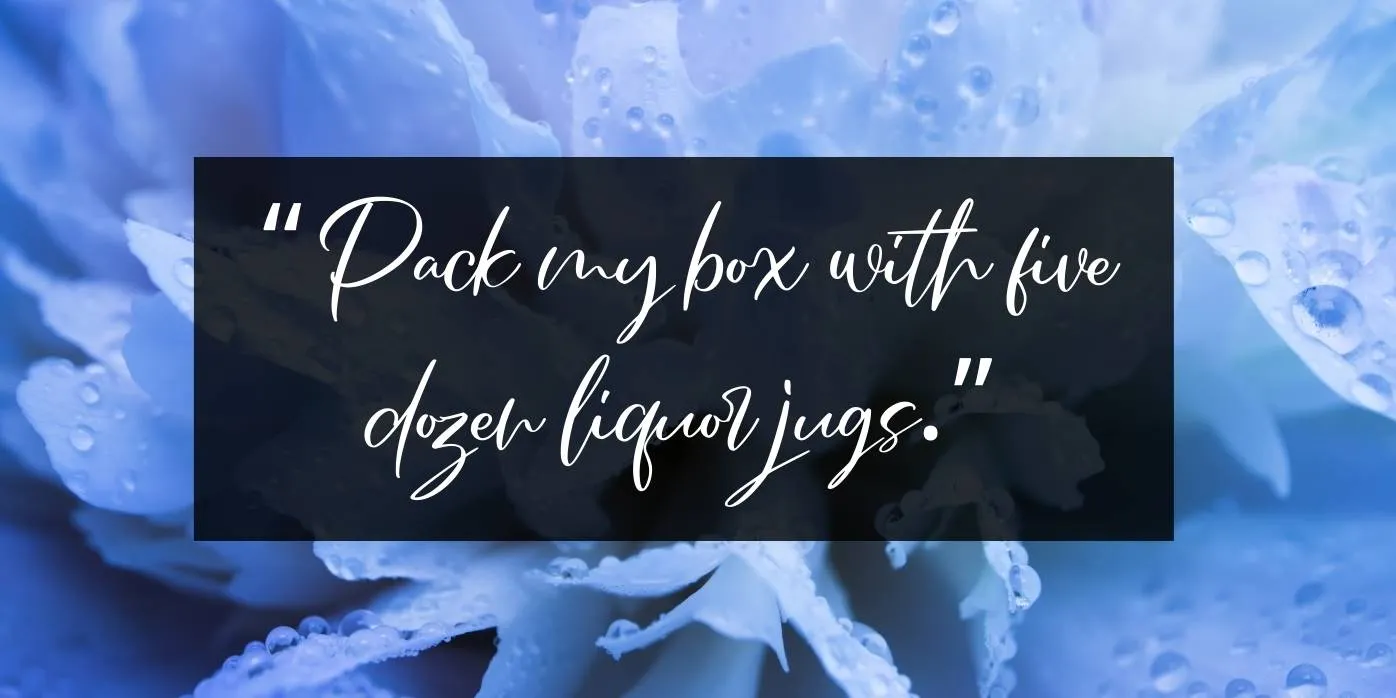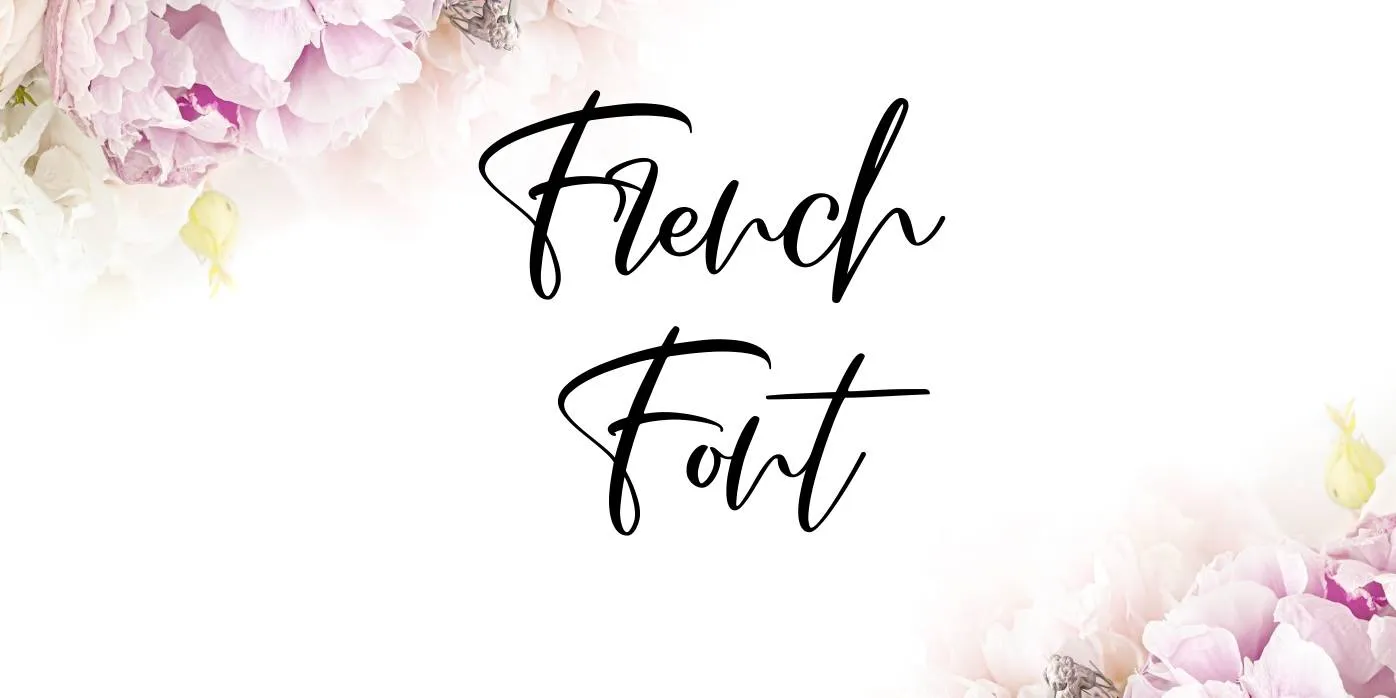
French Font
French Font is a very famous and popular typeface known as French Font. This stunning typeface was designed by Diane Dipiazza Dinctype. It belongs to the Script category. It was first released on 24th May 2017.
This typeface is available in 2 essential styles and many other variations. The styles are named regular and Bold. It contains a full set of characters, numerals, and punctuation. One best thing about this typeface is that it has a big size that is amazing for various designs.
It is best for Adobe and Word. Its similar sugar plums font is perfect for various designs. This amazing typeface has been used in many headline titles and branding logos. Some of the most popular brands that have used this font are Microsoft, and so on.